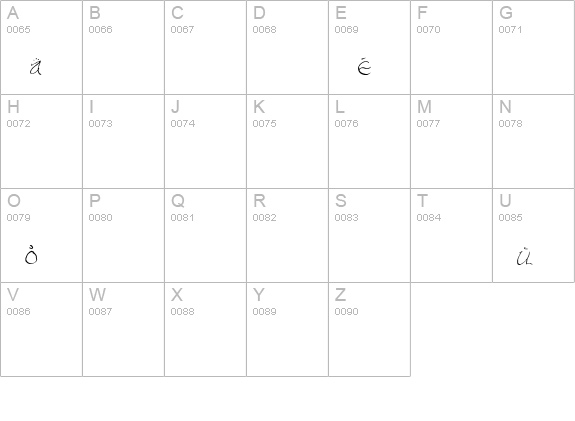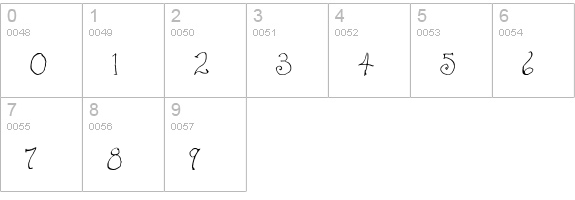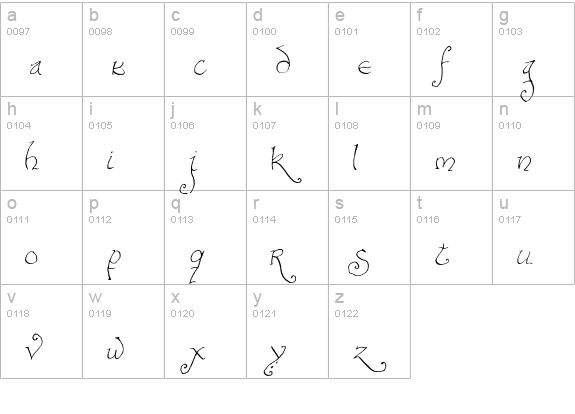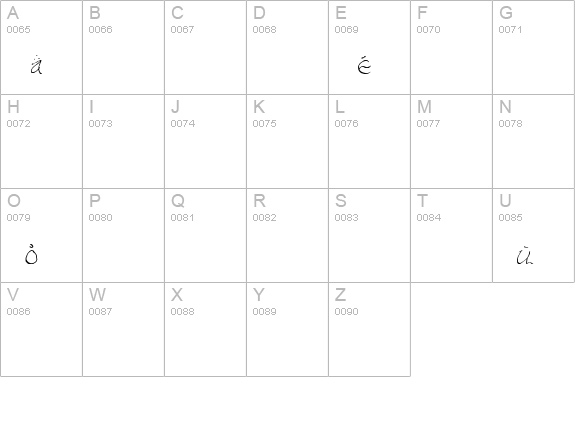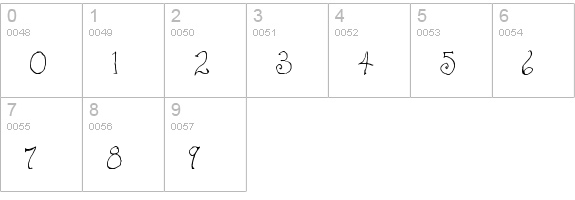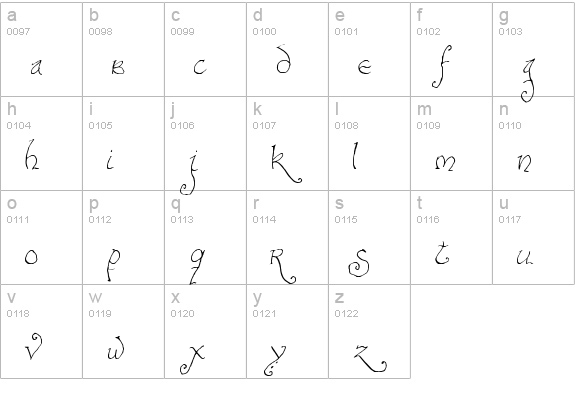
Bilbo-hand-fine Font Details
Bilbo-hand-fine font is a charming and elegant typeface that exudes a sense of whimsy and creativity. With its delicate hand-drawn style and fine details, this font captures a unique blend of playfulness and sophistication. Perfect for adding a touch of personality to your designs, Bilbo-hand-fine font is versatile and can be used for a variety of projects, from invitations to branding. Best of all, this font is available for free download at FontsMarket.com! Embrace the beauty and creativity of Bilbo-hand-fine font in your next design project and let your imagination soar.